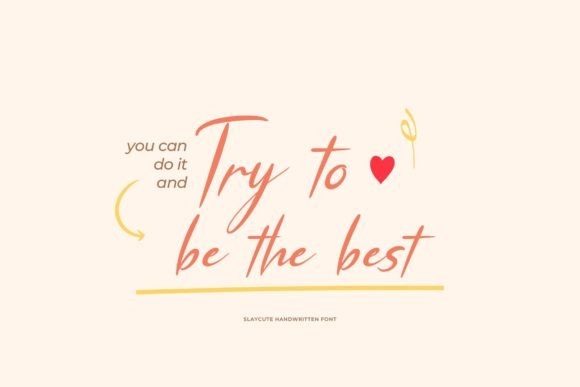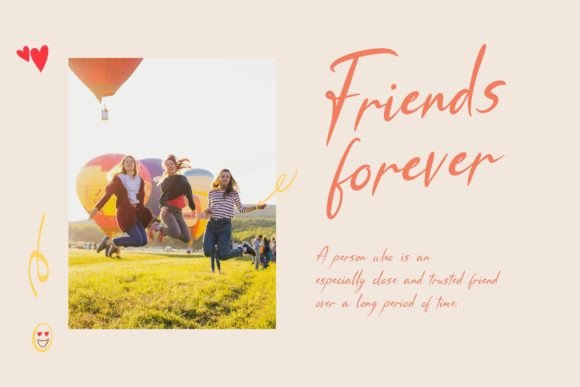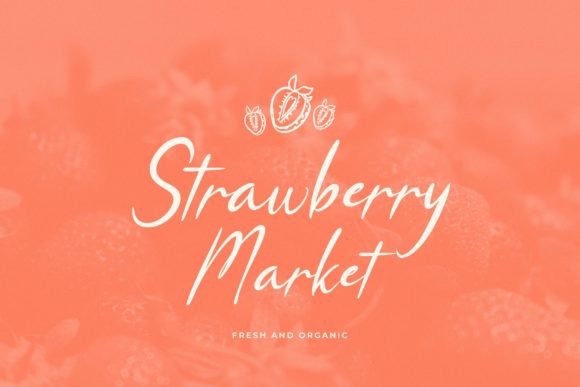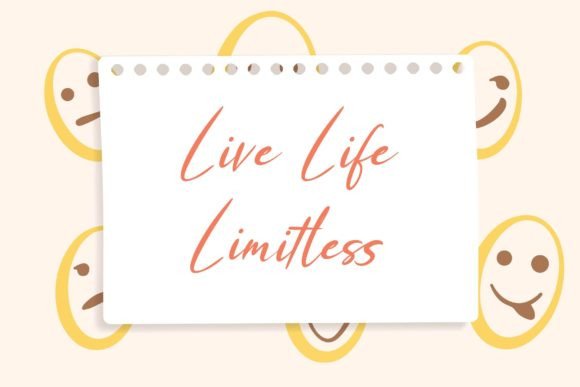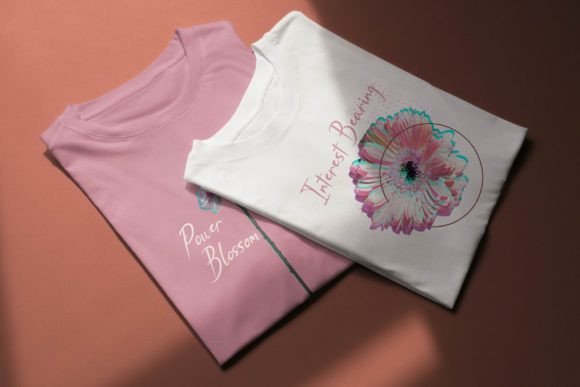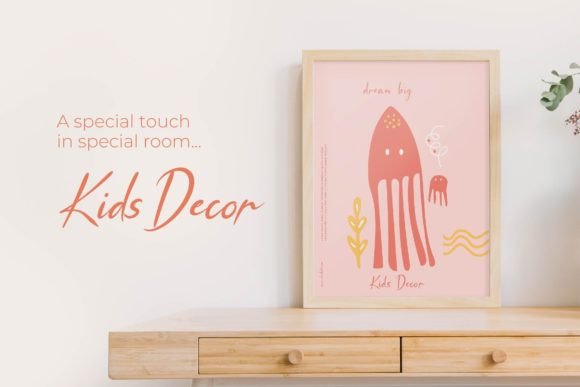
Introduction to Slaycute Font
Slaycute is a charming handwritten font with a playful, stylish look.
It has a fun and friendly feel, perfect for adding a personal touch to any project .
Key Features of Slaycute Font